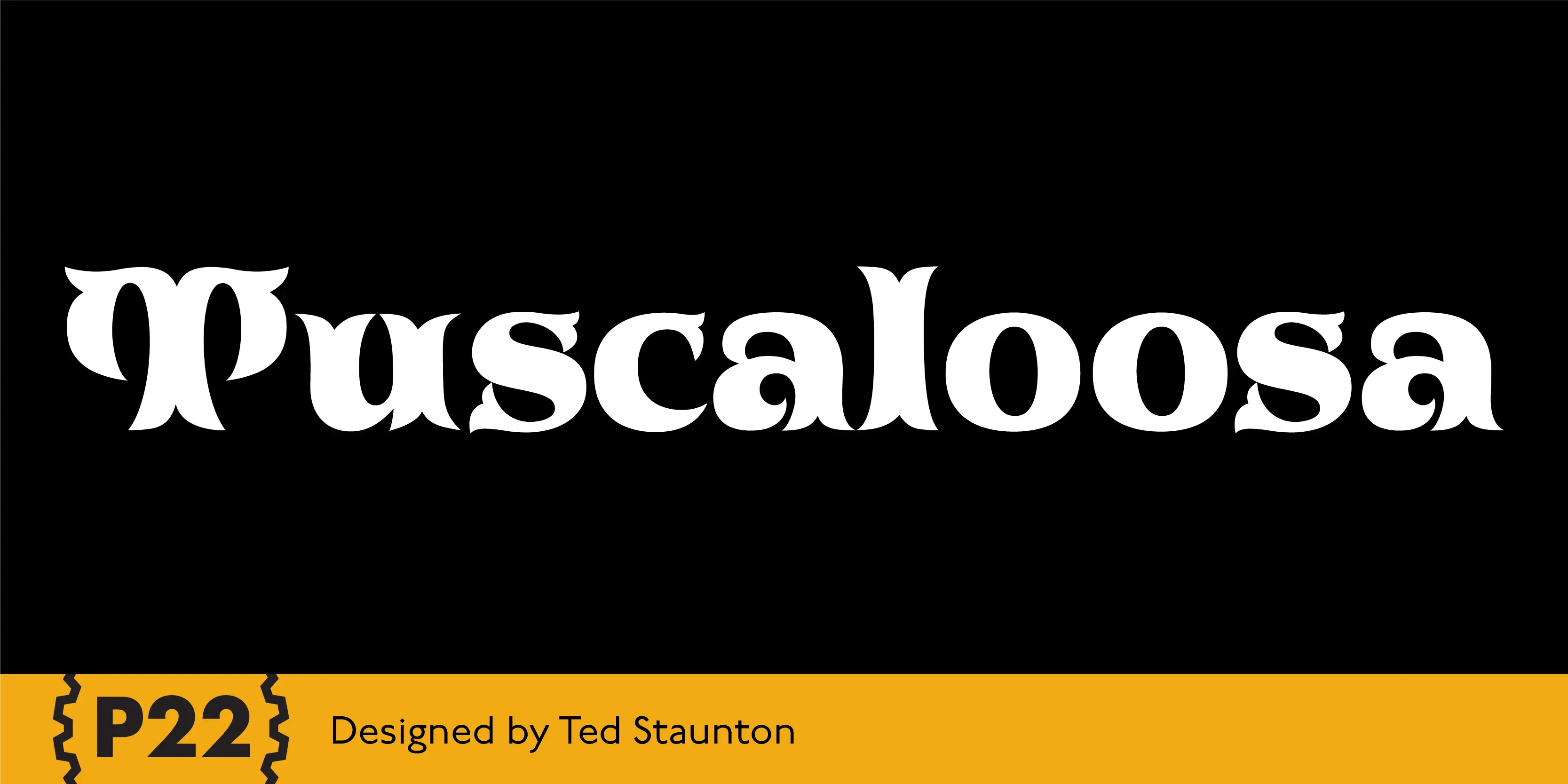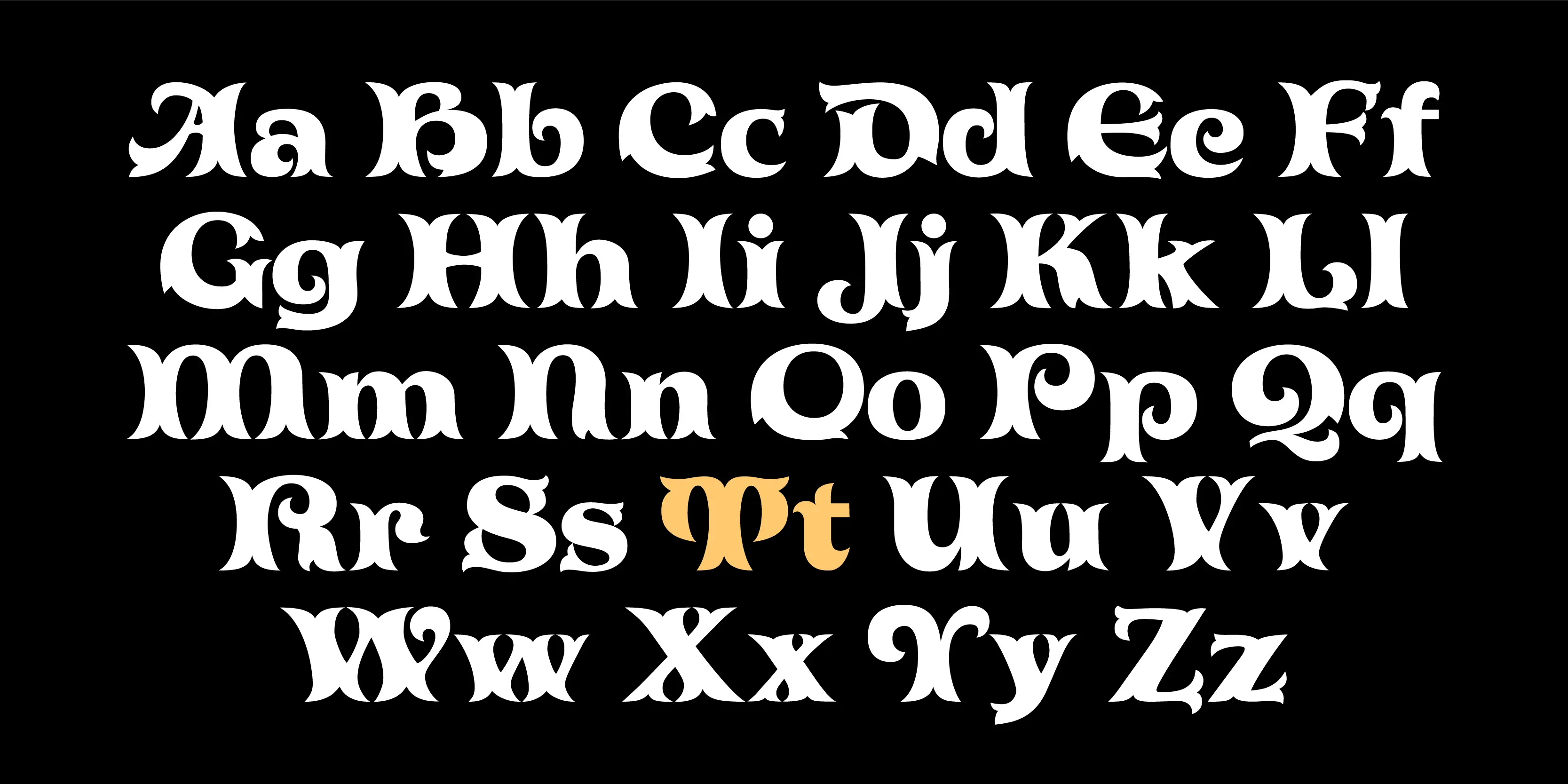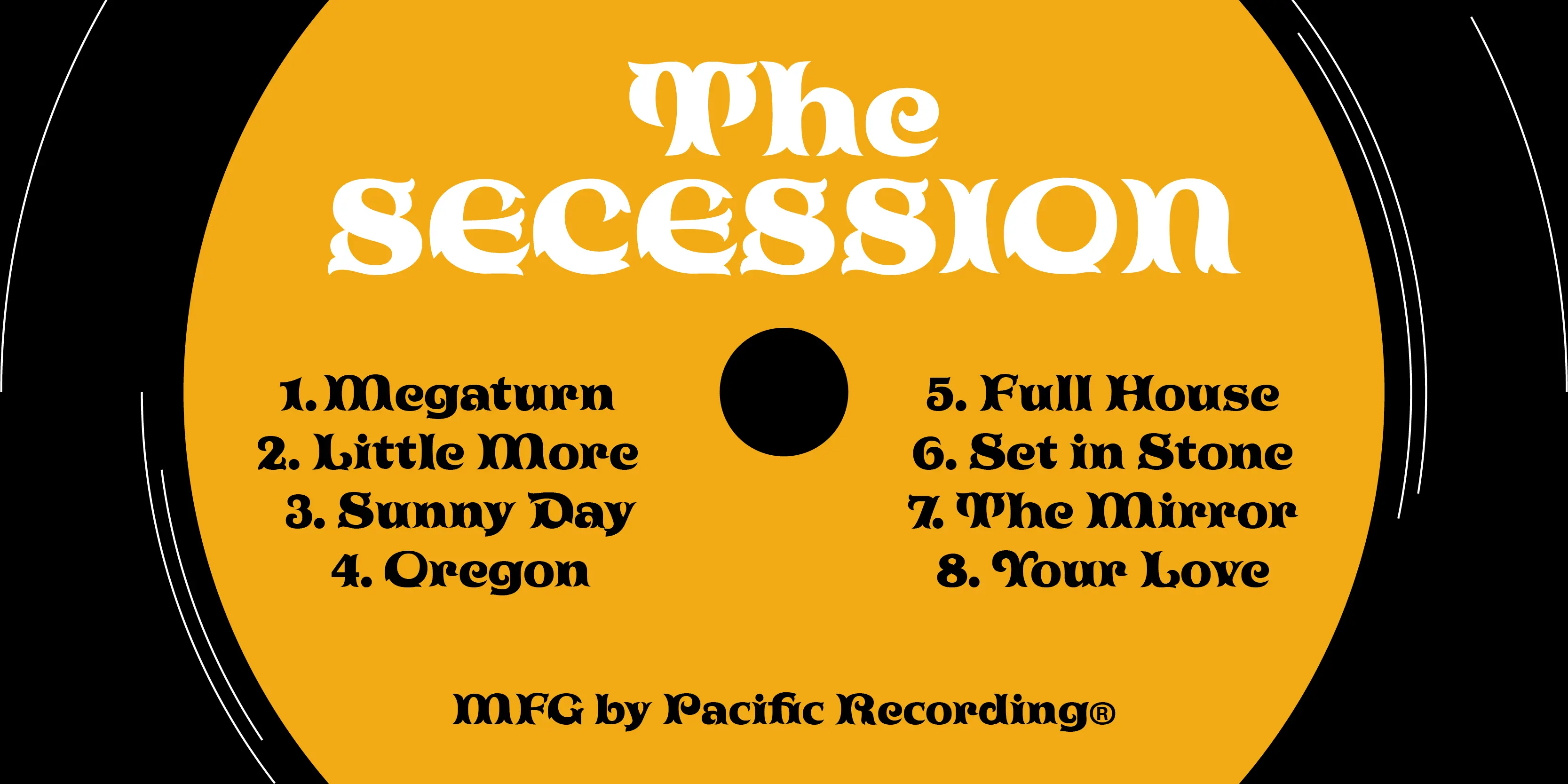
Tuscaloosa Fonts
Tuscaloosa
Tuscaloosa is a hybrid script that includes Tuscan (bifurcated) serif treatments. The design of Tuscaloosa began as a set of organically-formed initials, the Tuscan serifs being reminiscent of shoots and leaves bursting forth. Tuscaloosa also derives inspiration from the late Victorian era, when the development of newspaper and poster advertising led to extremes of weight in the main strokes. The font is intended to convey an aura of excitement and fun that characterized those times! The name ‘Tuscaloosa’ was chosen because of the appropriate combination of ‘Tuscan’ and ‘looseness’, and because of its essentially American character.